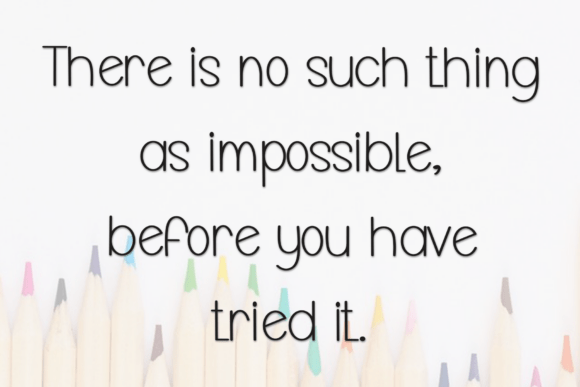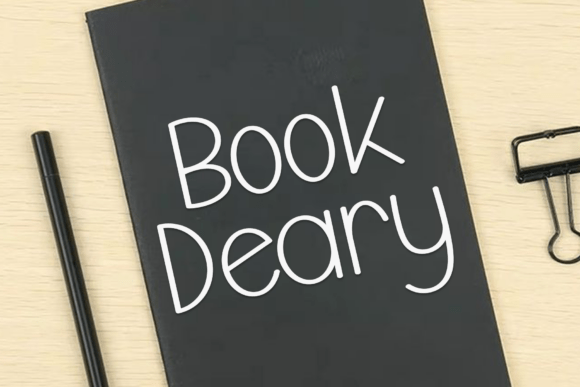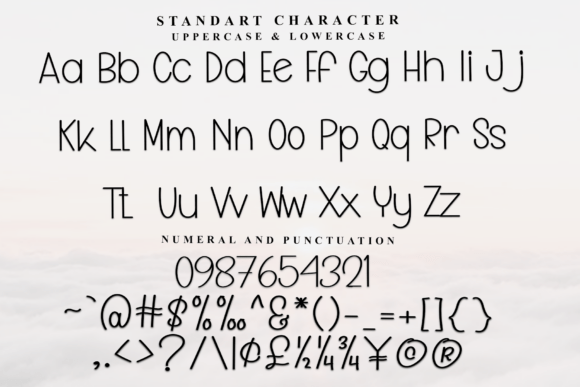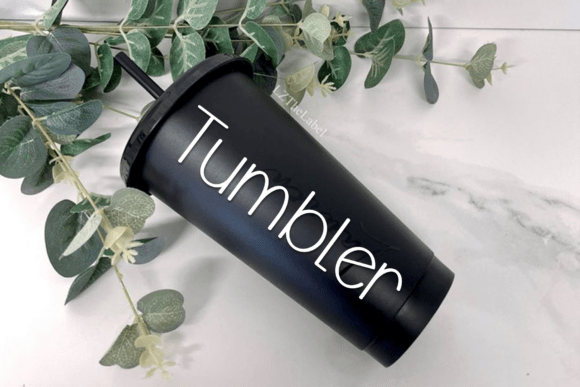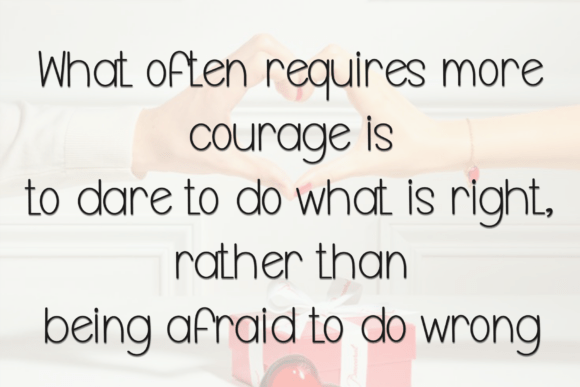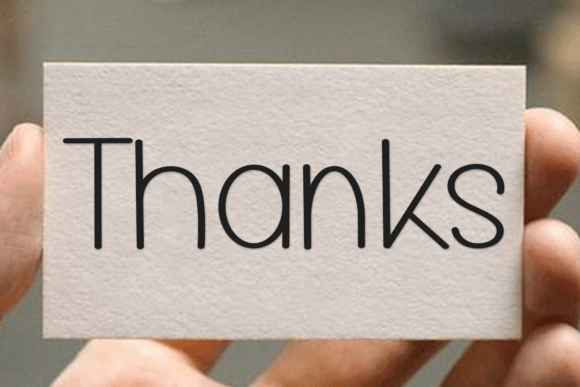
Introduction to Mother Beloved Font
Mother Beloved is a casual and creative font that exudes warmth and friendliness.
Key Features of Mother Beloved Font
Why Choose Mother Beloved Font?
Mother Beloved Font offers exceptional quality and versatility, making it a valuable addition to your design toolkit. Whether you’re creating for personal projects or commercial use, Mother Beloved Font delivers professional results.